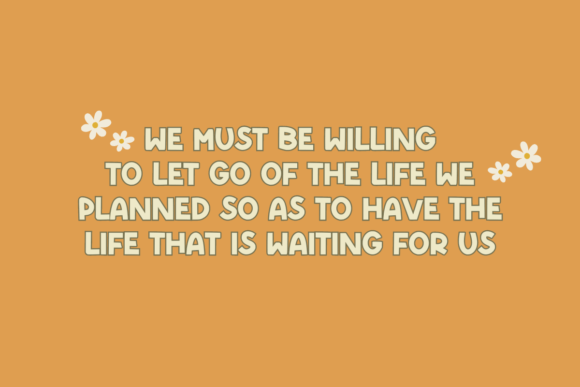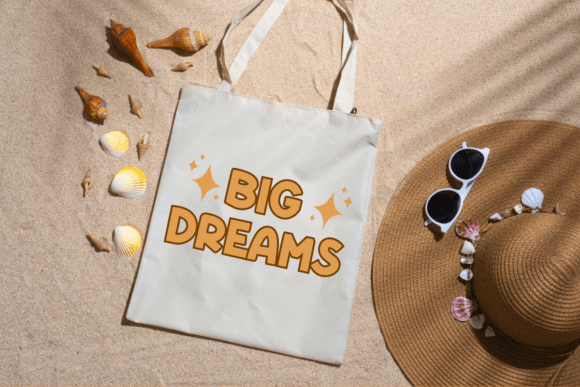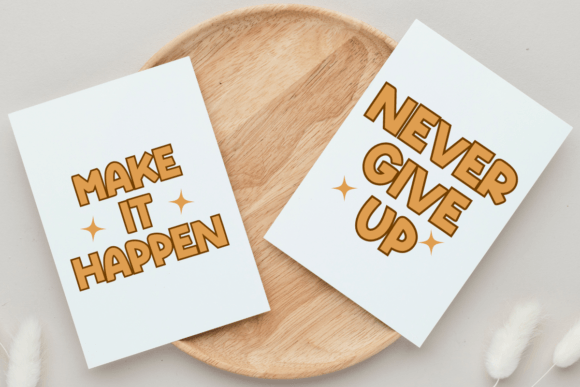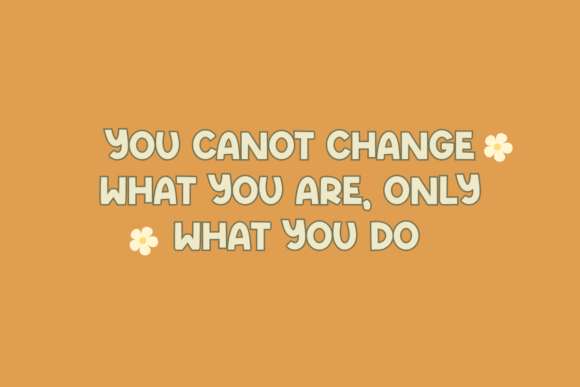
Introducing Feel Goods Font: The Perfect Addition to Your Creative Projects
Are you a designer, crafter, or DIY enthusiast looking for a font that can add a touch of cuteness and personality to your projects? Look no further than Feel Goods Font, a charming sans serif font that’s perfect for a wide range of creative endeavors. In this article, we’ll explore the features and benefits of Feel Goods Font, and show you how it can elevate your designs and crafts to the next level.
What is Feel Goods Font?
Feel Goods Font is a modern sans serif font that’s designed to be both visually appealing and highly versatile. Its clean lines, rounded edges, and playful vibe make it an excellent choice for a variety of projects, from stickers and notes to planners, SVG quotes, and more. Whether you’re creating digital content or physical products, Feel Goods Font is sure to add a dash of personality and whimsy to your designs.
Key Features of Feel Goods Font
- Cute and Playful Design: Feel Goods Font features a unique and charming design that’s perfect for adding a touch of personality to your projects.
- Sans Serif Style: The font’s sans serif style makes it easy to read and highly versatile, suitable for a wide range of applications.
- Highly Legible: Feel Goods Font is designed to be highly legible, even at small sizes, making it perfect for use in stickers, notes, and other small-format projects.
- SVG Compatible: The font is fully compatible with SVG files, making it easy to use with cutting machines like Cricut and Silhouette.
Feel Goods Font is an excellent choice for a wide range of creative projects, including:
- Stickers: Add a touch of personality to your stickers with Feel Goods Font, perfect for use in planners, journals, and other paper crafts.
- Notes and Planners: Use Feel Goods Font to add a playful touch to your notes and planners, making them more fun and engaging to use.
- SVG Quotes: Create stunning SVG quotes with Feel Goods Font, perfect for use in social media graphics, wall art, and more.
- T-Shirts and Apparel: Use Feel Goods Font to create custom t-shirts, hoodies, and other apparel that’s sure to turn heads.
- Wall Art: Create beautiful wall art with Feel Goods Font, perfect for use in home decor, nursery art, and more.
- Cricut and Craft Projects: Feel Goods Font is fully compatible with Cricut and other cutting machines, making it perfect for use in a wide range of craft projects.
- Embroidery and Cross-Stitch: Use Feel Goods Font to create custom embroidery and cross-stitch patterns, adding a personal touch to your needlework projects.
- Posters and Cards: Create stunning posters and cards with Feel Goods Font, perfect for use in marketing campaigns, events, and more.
Why Choose Feel Goods Font?
With so many fonts to choose from, why should you choose Feel Goods Font for your creative projects? Here are just a few reasons:
- Unique and Playful Design: Feel Goods Font features a unique and playful design that’s sure to add a touch of personality to your projects.
- Highly Versatile: The font is highly versatile, suitable for use in a wide range of applications and projects.
- Easy to Read: Feel Goods Font is designed to be highly legible, even at small sizes, making it perfect for use in small-format projects.
In conclusion, Feel Goods Font is a charming sans serif font that’s perfect for adding a touch of personality and whimsy to your creative projects. With its clean lines, rounded edges, and playful vibe, it’s an excellent choice for a wide range of applications, from stickers and notes to planners, SVG quotes, and more. Whether you’re a designer, crafter, or DIY enthusiast, Feel Goods Font is sure to become a favorite in your font collection.